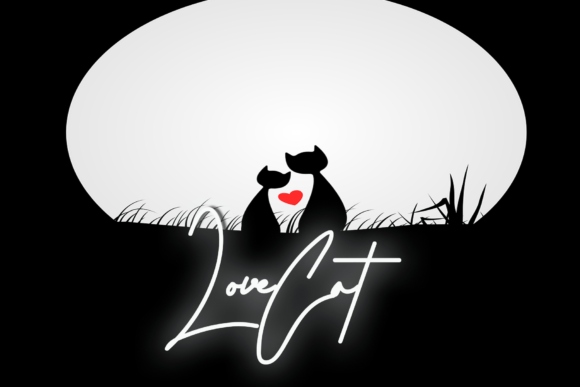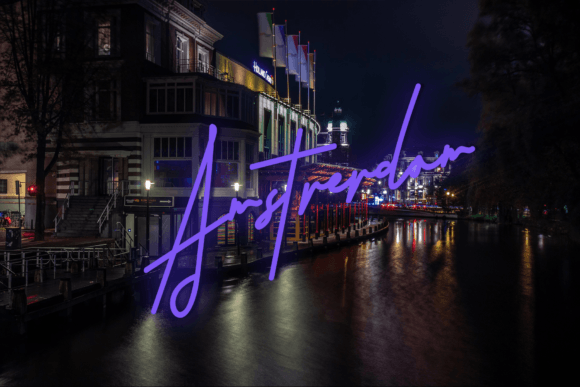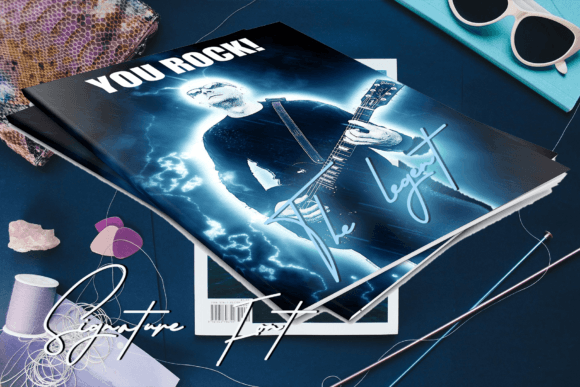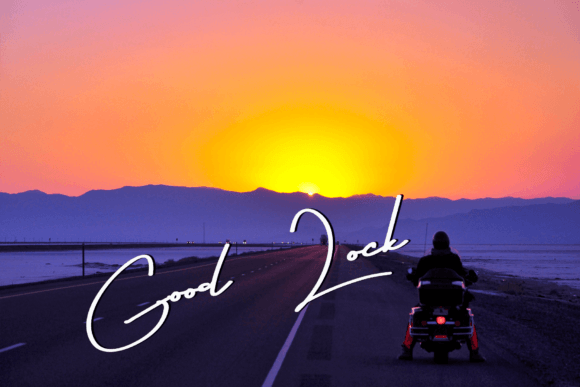
Martyna Signature Font
About Martyna Signature Font
“Martyna Signature” is a font that embodies a cool, simple, and playful handwritten style. Its versatility knows no bounds, making it suitable for a wide variety of designs. Whether you’re working on posters, banners, logos, social media graphics, invitations, or any other creative project, this font has the ability to elevate your designs to the highest levels.
The font’s cool and playful demeanor adds a touch of modernity and creativity to your text. Its simplicity gives it a clean and contemporary look, making it easy to read and visually appealing. “Martyna Signature” effortlessly adapts to different design contexts, enhancing the overall aesthetics of your projects.
With its playful handwriting style, “Martyna Signature” brings a sense of fun and energy to your designs. Its adaptability allows it to complement various themes and visual elements, making it a valuable asset for designers who want to add a touch of whimsy to their creations. The font’s ability to infuse a sense of playfulness into your text makes it suitable for both casual and creative designs.
Embrace the versatility of “Martyna Signature” and let it breathe life into your favorite creative ideas. Whether used for digital or print media, this font has the power to transform your designs, making them come alive with a youthful and vibrant energy. Watch as your projects take on a fresh and contemporary vibe, leaving a lasting impression on your audience. With “Martyna Signature,” your creative endeavors are bound to shine, capturing the attention and admiration of viewers with its cool, simple, and playful handwritten style.